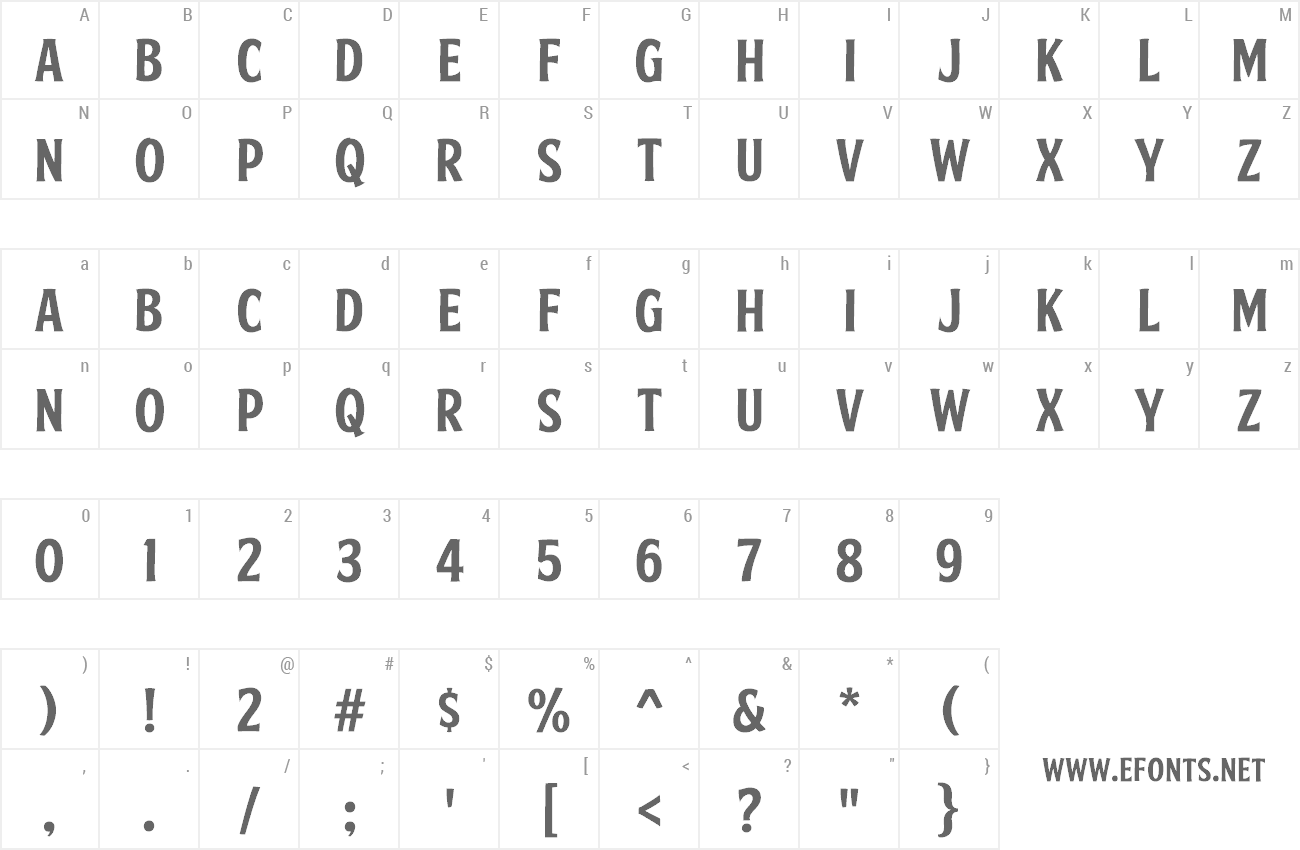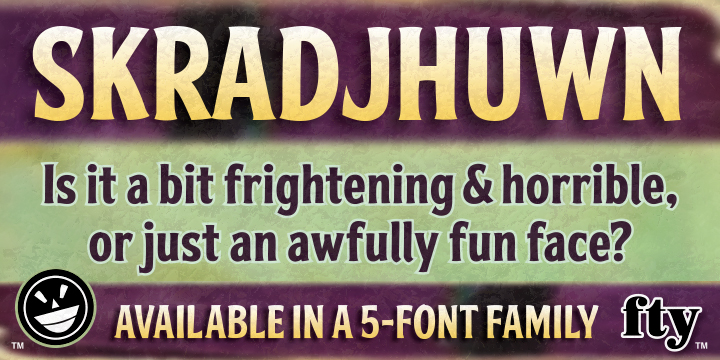
Preview and download FTY Skradjhuwn NCV Font. Created by Fontry in Fancy Various styles with Free for personal use license.
The commercial version of this font is available for $25 USD at http://www.thefontry.com/skradjhuwn A fun face with a nice bounce, the freeware version of SKRADJHUWN arrives in 3 flavors to fill all your layout needs. For even more variety and a complete range of lowercase letters, get your hands on the commercial version of this family. It will meet all your weight requirements for those graphics that need to be lean and clean. |